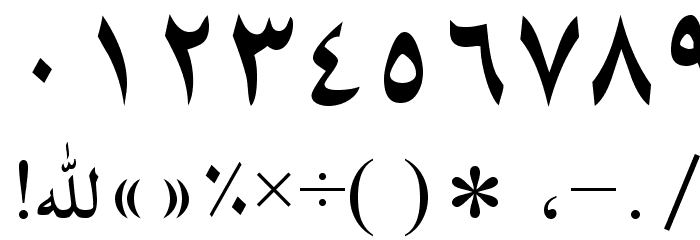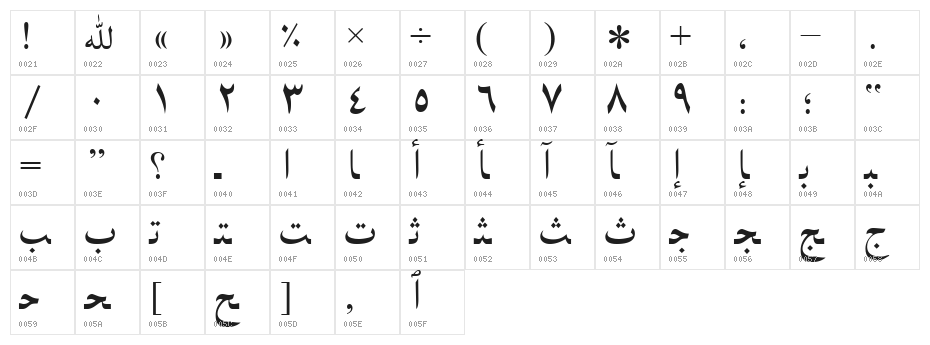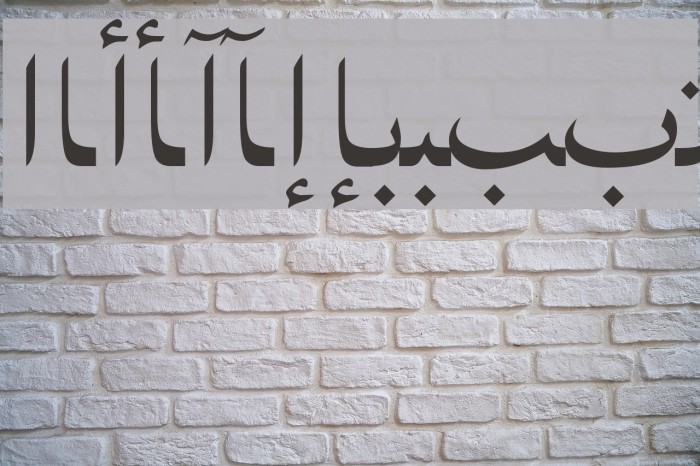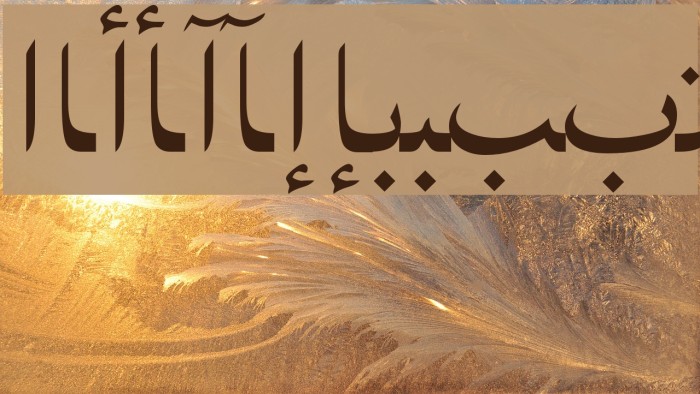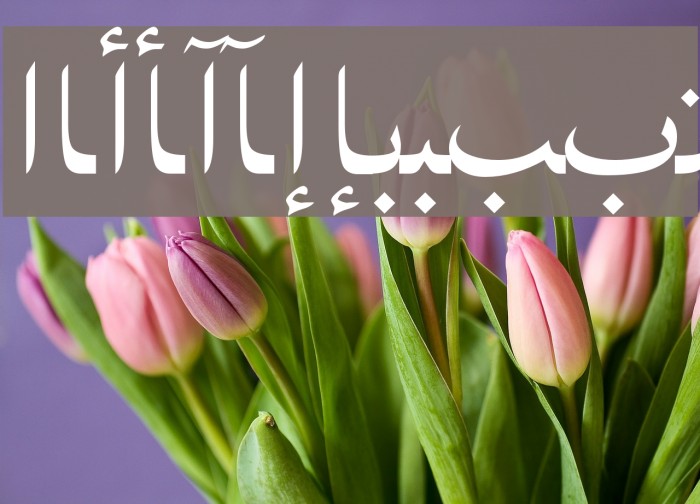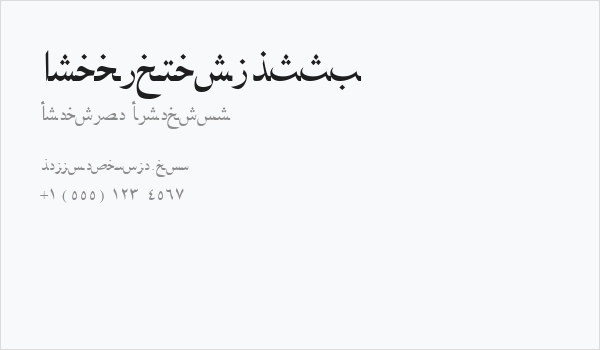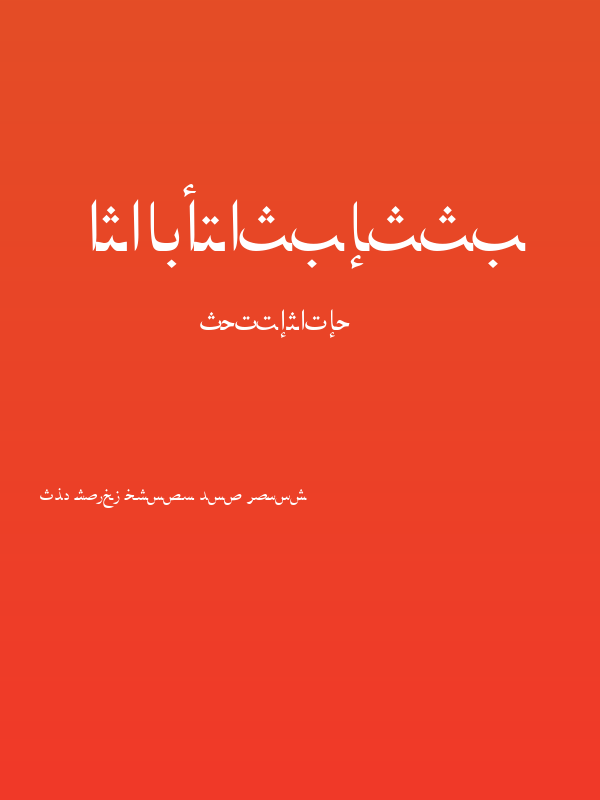
ArabicNaskhSSK Font
ArabicNaskhSSK Description
This font showcases a traditional Arabic Naskh style, characterized by its elegant and flowing script. The letters are well-balanced with a harmonious blend of curves and straight lines, providing a sense of fluidity and grace. The script is highly legible, making it suitable for both formal and informal contexts. The diacritical marks are clearly defined, enhancing readability. The numerals are distinct and integrate seamlessly with the overall design, maintaining the aesthetic consistency of the script. This font is ideal for projects that require a touch of classic Arabic elegance.
| Use Case | Body text, Religious texts, Educational materials |
| Proposed Projects | Ideal for book publishing, formal invitations, religious texts, and educational materials. |